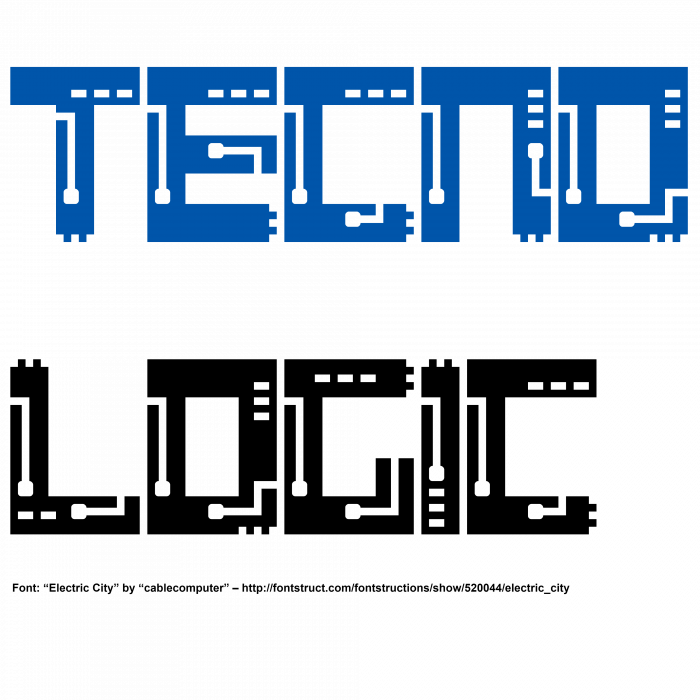
Interesting. This one reminds me some concepts of our greatly missing Funk_King.
Just... why have put the filters to 0,99? It's not enough different from 1 to make a real grid effect and uncleans a bit the black parts.
Oh, you're right. I test it on my laptop and the font doesn't make any grid effect. Thanks for your suggestion. I'll fix it soon...
How about 0.95?
Personally, i think i prefer it in all black ( filter to 1), but you can make an alternate font with grid effect, then i suggest a larger effect (filter to 9 or less). That's just my feeling, you're the captain on board.
Oh, I test it it in my laptop. And now I prefer the font is in 0.95 filter :/ But, thank you for all your suggestions neurone error.
I've been there, sometimes at some point it becomes difficult to take frank decisions on subtile changes.
Nice font! 10/10.
This is great. I also prefer it without the filter though.
I never think if my font will commented by the author of fontstruct....
Ok, I will make it without the filter.
Congratulations! FontStruct Staff have deemed your FontStruction worthy of special mention. “Electric City” is now a Top Pick.
Congratulations on a well deserved TP :)
To paraphrase Chancellor Palpatine, I've watched your font with great interest.
Using ridiculously simple style elements, your font evokes circuits board patterns and takes me back to the early 1980s. May I echo p2pnut's sentiments on this well-deserved Top Pick.
Two suggestions:
1) On the @ character, there is a single stray brick 13 bricks past the end of the character at a height of 6 bricks.
2) In order to maintain proper character widths, use the keyboard shortcut key "W" to bring up the Width Adjustor; adjust accordingly for each character.
Looking forward to your next font!
Fixed. Thank Goatmeal! I never realized the stray brick before.
Great job!
oh nice I like this one!
Cool! You did great!